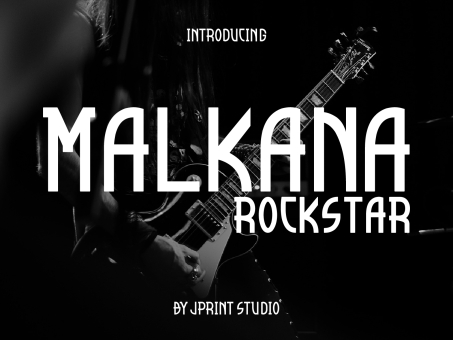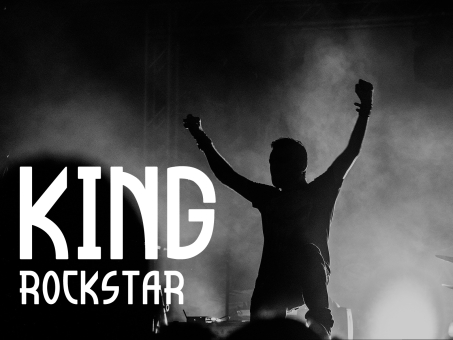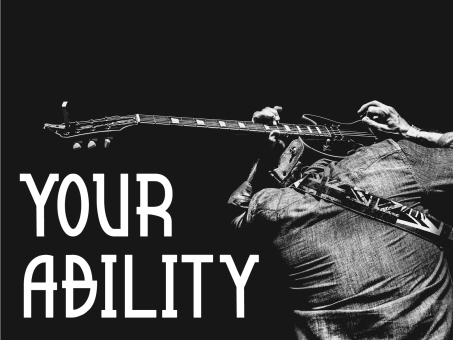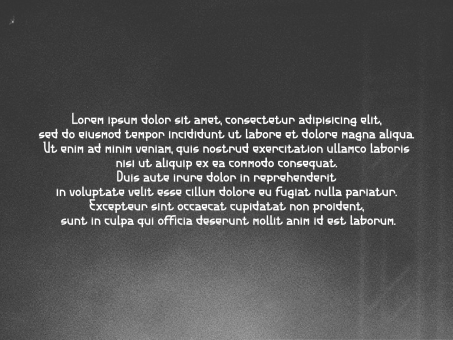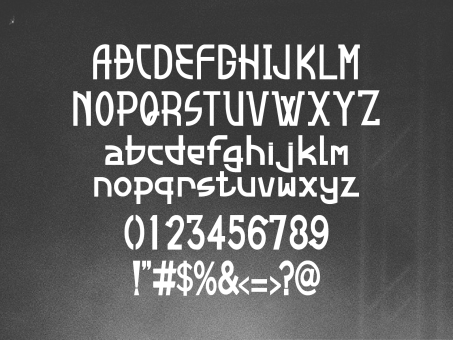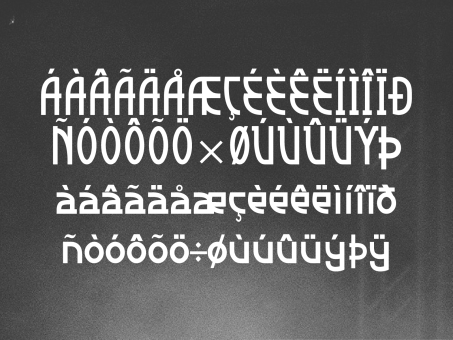
Malkana
Malkana is inspired by classic typography and brings its own unique style to any design project. It will take your designs to the next level!